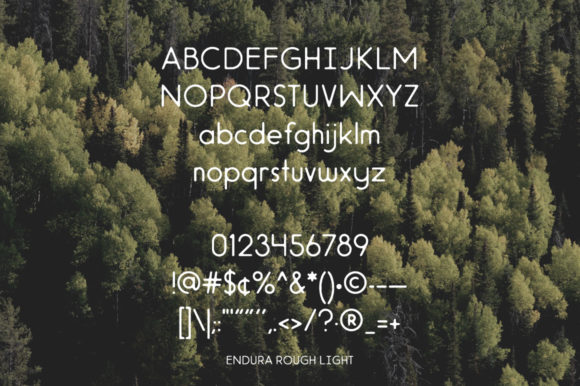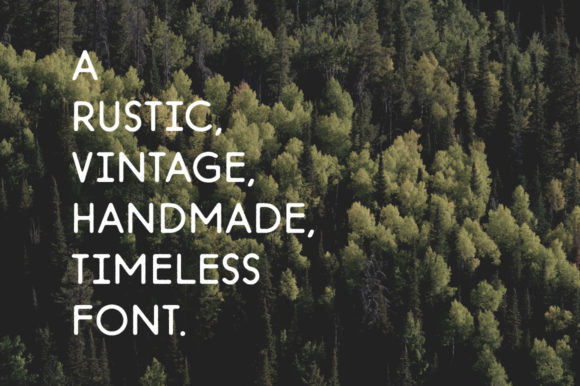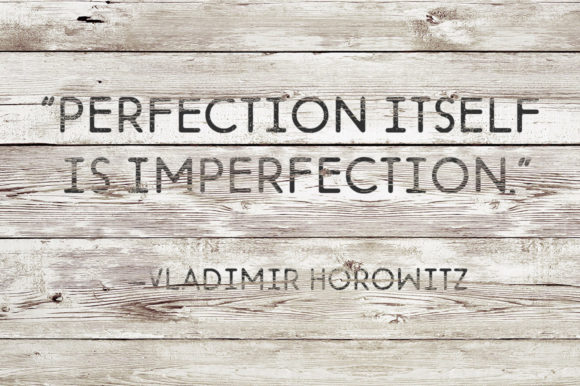
Introducing Endura Rough: The Rustic Display Font for Timeless Creations
In the world of typography, fonts play a crucial role in conveying messages, expressing emotions, and creating visual identities. For designers, crafters, and creative enthusiasts, finding the perfect font can be a daunting task. However, if you’re looking for a rustic and timeless display font that can elevate your creations, look no further than Endura Rough. This versatile font is designed to inspire your imagination and bring a touch of simplicity to your projects.
The Charm of Endura Rough
Endura Rough is a unique display font that boasts a rustic, weathered look, reminiscent of vintage signs and distressed wood. Its rough texture and subtle imperfections give it a charming, handmade feel that’s perfect for creating authentic and earthy designs. Whether you’re working on a logo, a poster, or a packaging design, Endura Rough is sure to add a touch of character and personality to your project.
Simplicity and Versatility
One of the standout features of Endura Rough is its simplicity. With clean lines, simple shapes, and a limited color palette, this font is incredibly versatile and can be used in a wide range of creative projects. From rustic wedding invitations to outdoor gear branding, Endura Rough is the perfect choice for designers who want to create timeless and memorable designs.
Endless Options
The possibilities are endless with Endura Rough. Here are just a few ideas to get you started:
- Logos and branding: Use Endura Rough to create a unique and memorable logo for your business or product.
- Posters and flyers: Add a touch of rustic charm to your promotional materials with Endura Rough.
- Packaging design: Use Endura Rough to create eye-catching packaging that stands out on store shelves.
- Wedding invitations: Create beautiful, rustic wedding invitations with Endura Rough.
- Outdoor gear: Use Endura Rough to brand your outdoor gear, such as camping equipment, apparel, or accessories.
Why Choose Endura Rough?
So, why choose Endura Rough over other fonts? Here are just a few reasons:
- Unique character: Endura Rough has a distinctive, rustic look that’s sure to set your designs apart.
- Versatility: This font can be used in a wide range of creative projects, from logos to posters to packaging design.
- Easy to read: Despite its rustic texture, Endura Rough is incredibly easy to read, making it perfect for body text and headlines.
- Timeless appeal: Endura Rough has a timeless quality that ensures your designs will remain relevant for years to come.
Tips for Using Endura Rough
To get the most out of Endura Rough, here are a few tips:
- Experiment with colors: Endura Rough looks great in a range of colors, from earthy tones to bold brights.
- Play with texture: Add an extra layer of texture to your designs by combining Endura Rough with other textures, such as wood or stone.
- Keep it simple: Don’t be afraid to keep things simple with Endura Rough. Its rustic charm is perfect for minimalist designs.